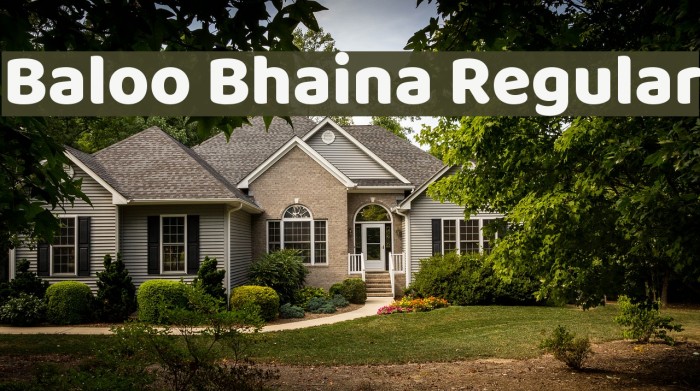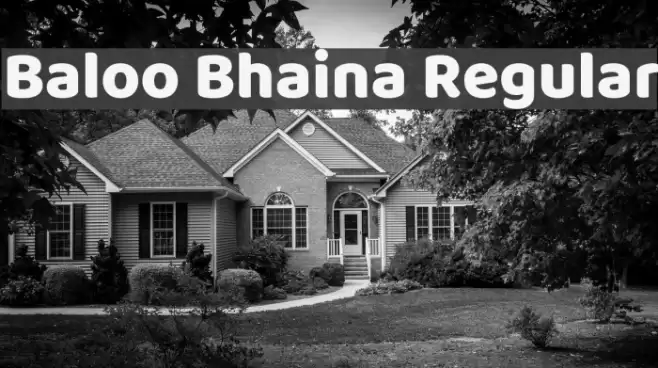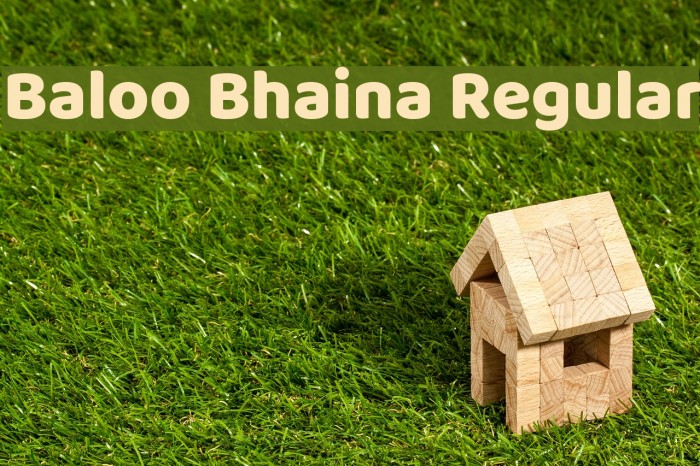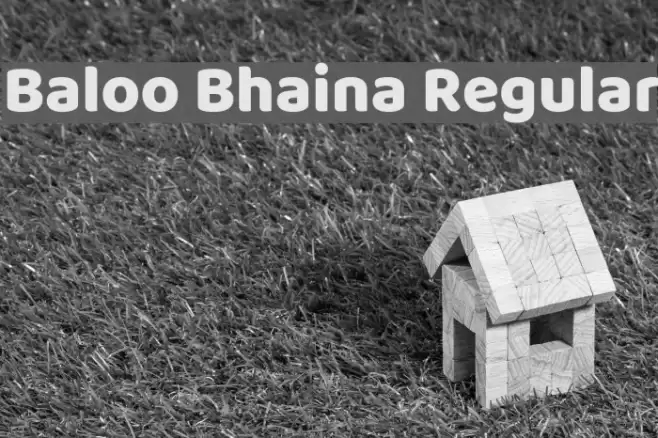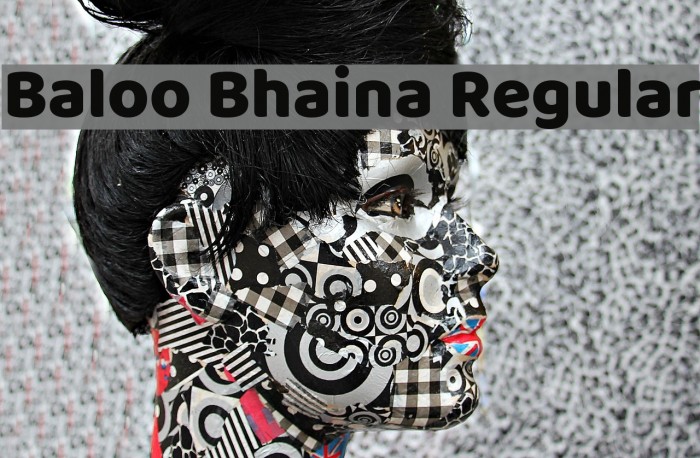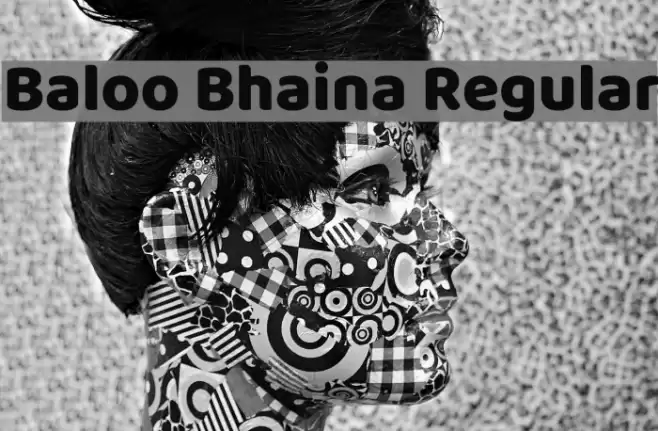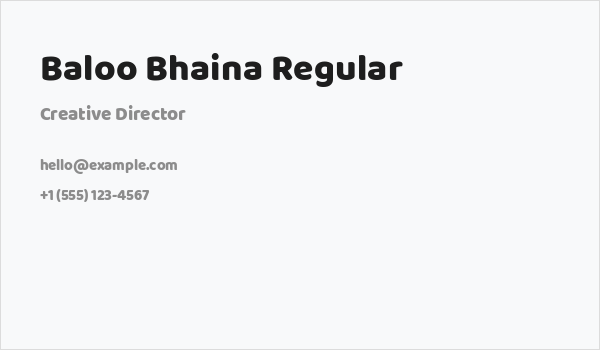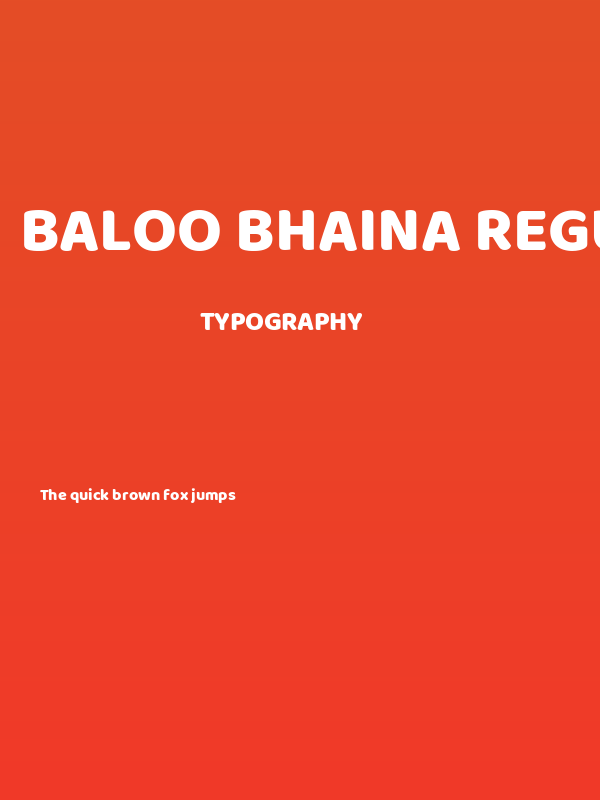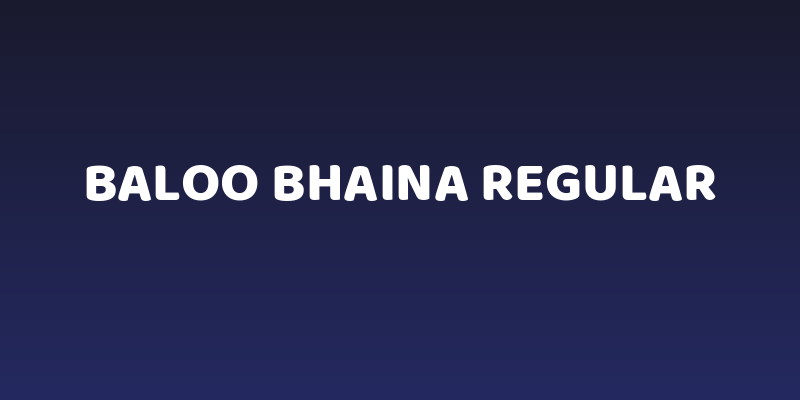
Baloo Bhaina Regular Font
Baloo Bhaina Regular Description
This font features a playful and rounded design, characterized by its bold and friendly appearance. The letters are thick and have a smooth, uniform stroke width, giving it a modern and approachable feel. The rounded edges and consistent line weight contribute to its inviting and informal style, making it suitable for a variety of creative projects. The font maintains a balanced and harmonious look, with each character well-proportioned and easy to read. Its simplicity and warmth make it ideal for applications where a casual and friendly tone is desired.
| Proposed Projects | Ideal for children's books, playful branding, casual invitations, and friendly social media graphics. |